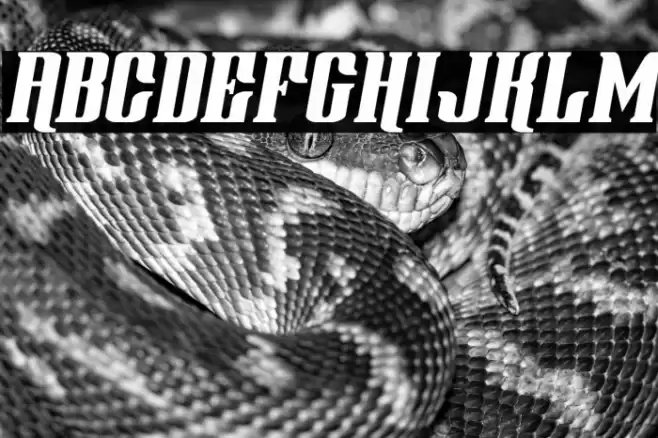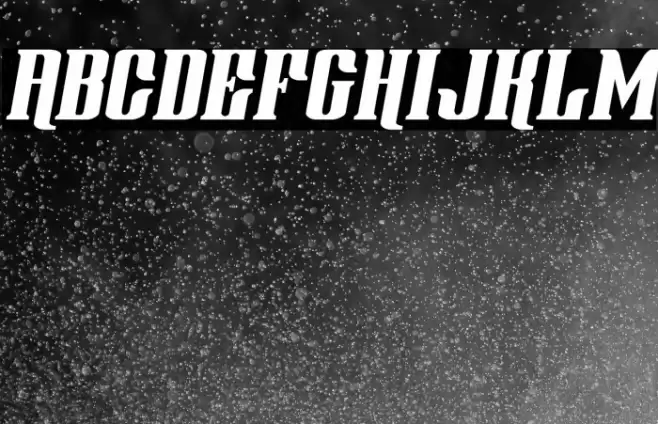
Gentleman Caller Italic Font
Gentleman Caller Italic Description
This font features a bold and dynamic style with a distinct italic slant, giving it a sense of movement and energy. The characters are designed with sharp, angular edges and a strong presence, making them highly visible and impactful. The uppercase and lowercase letters maintain a consistent style, with the uppercase letters being slightly more pronounced. The numbers and special characters follow the same bold and italicized design, ensuring uniformity across all elements. This font's unique style is reminiscent of vintage signage and classic sports branding, making it both nostalgic and modern.
A bold, italicized font with sharp, angular edges and a vintage flair from Uncategorized fonts.
- Font: Gentleman Caller Italic
- Proposed Projects: Ideal for sports branding, vintage posters, dynamic headlines, and retro-themed designs.
- Overall Style: Vintage